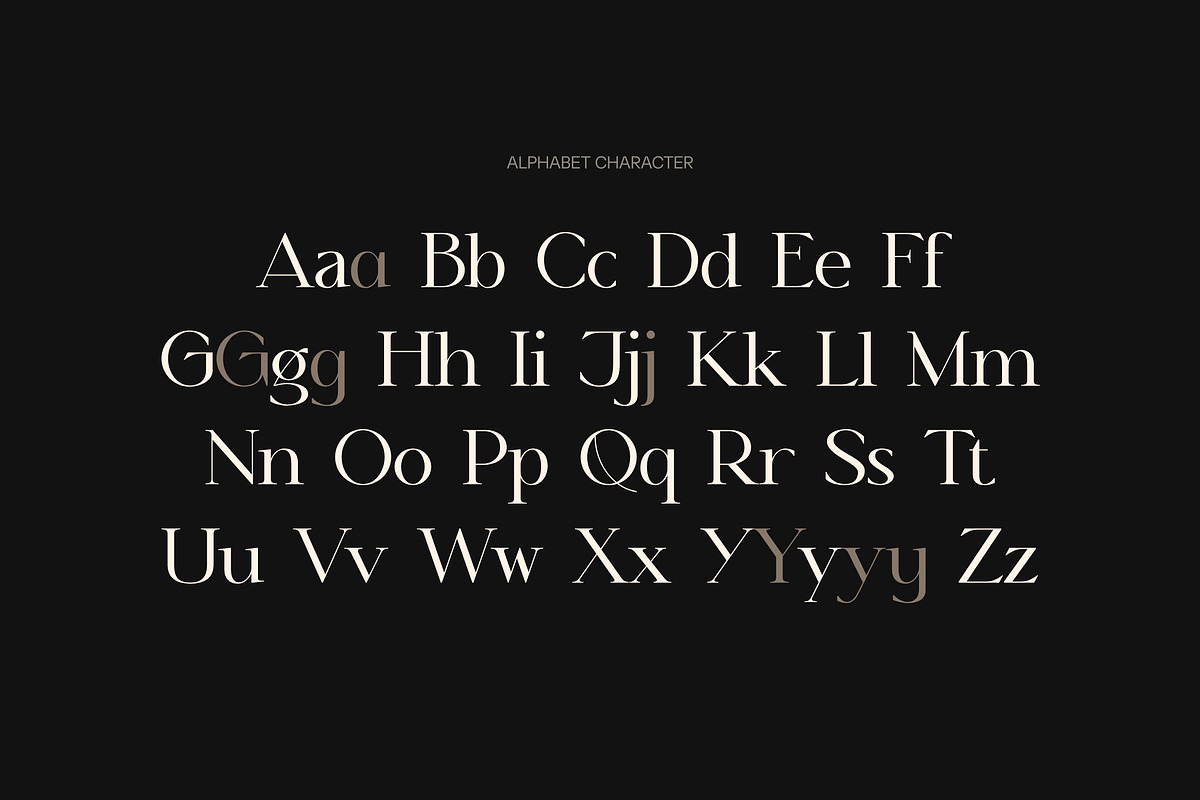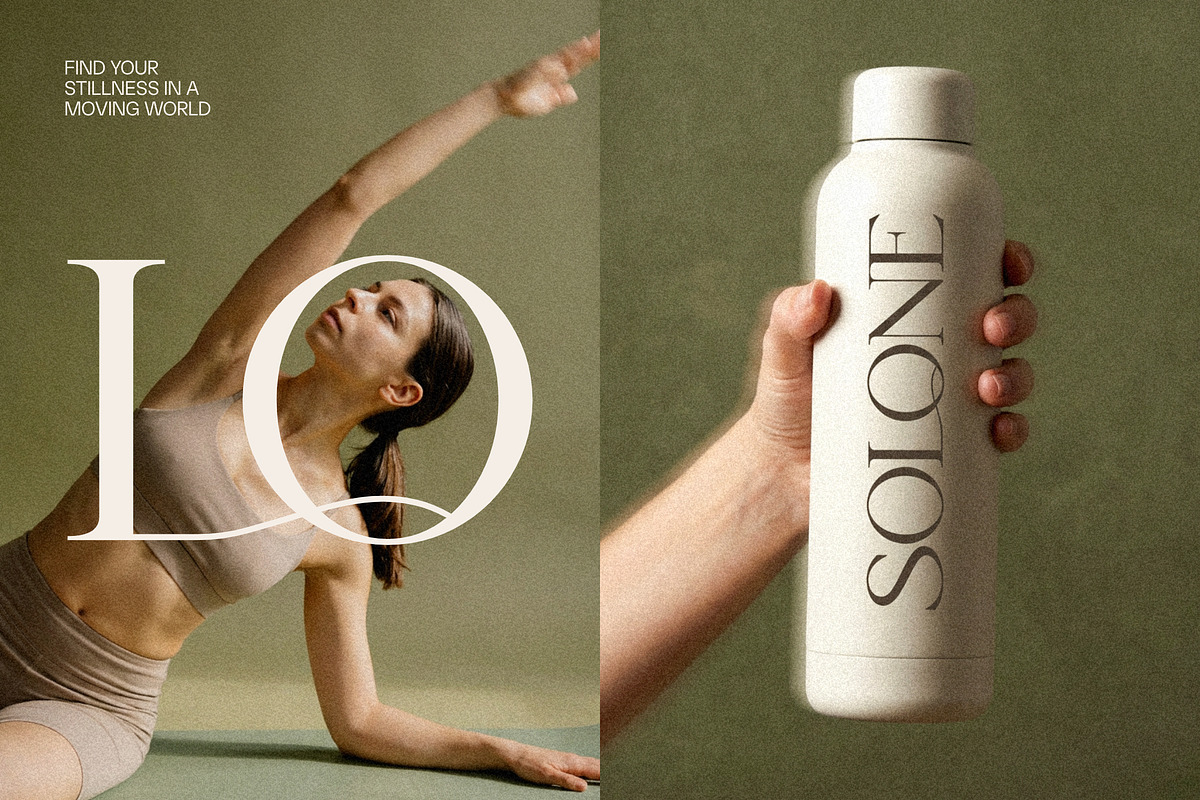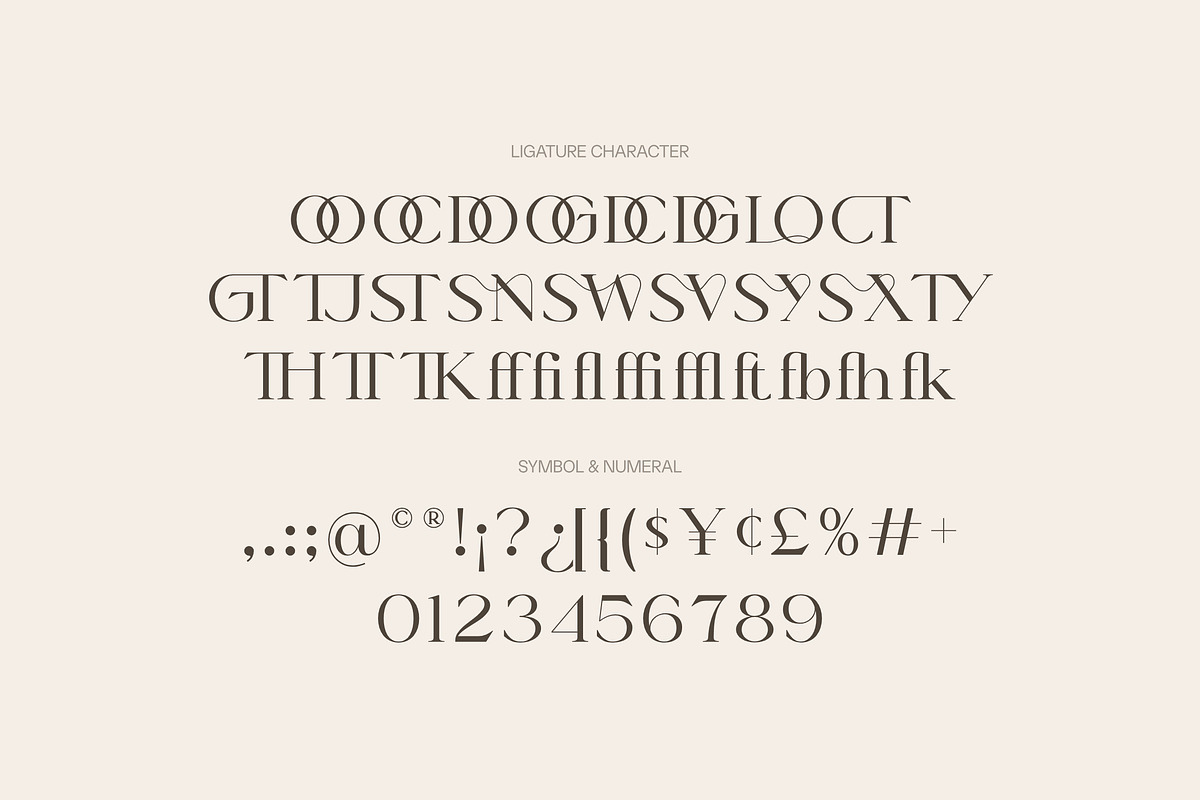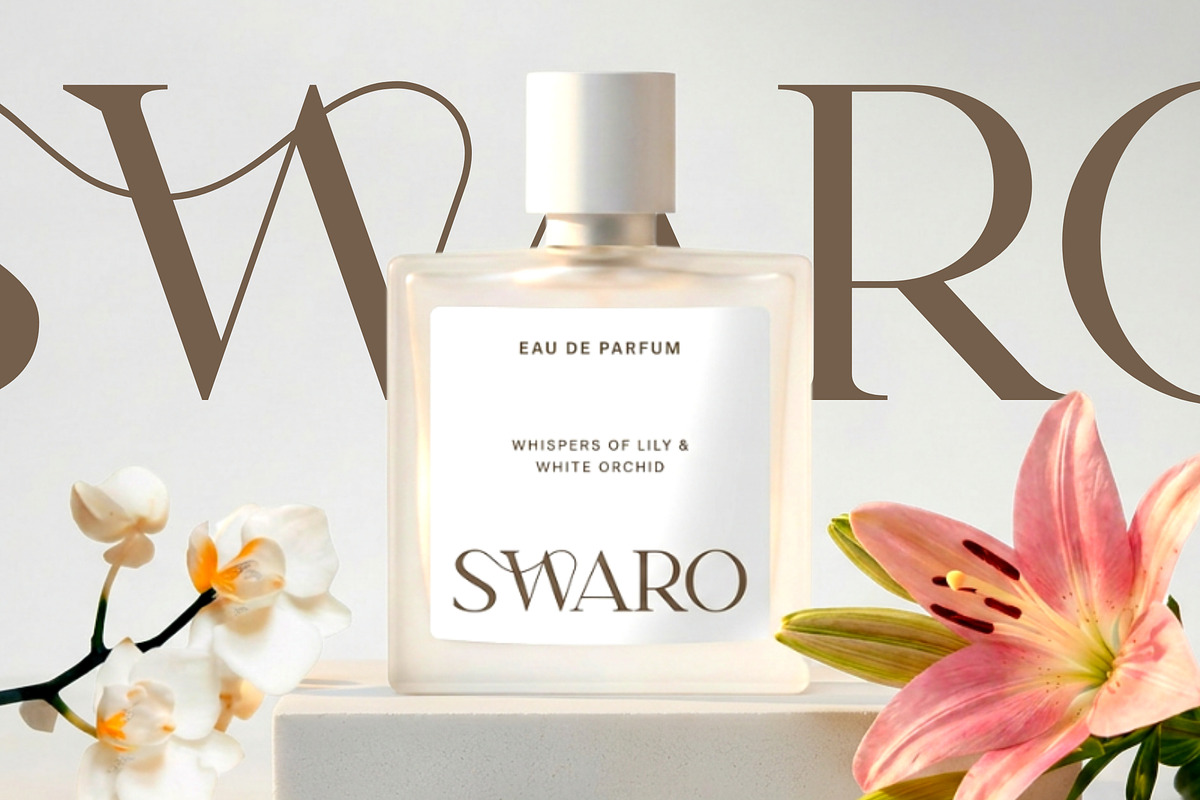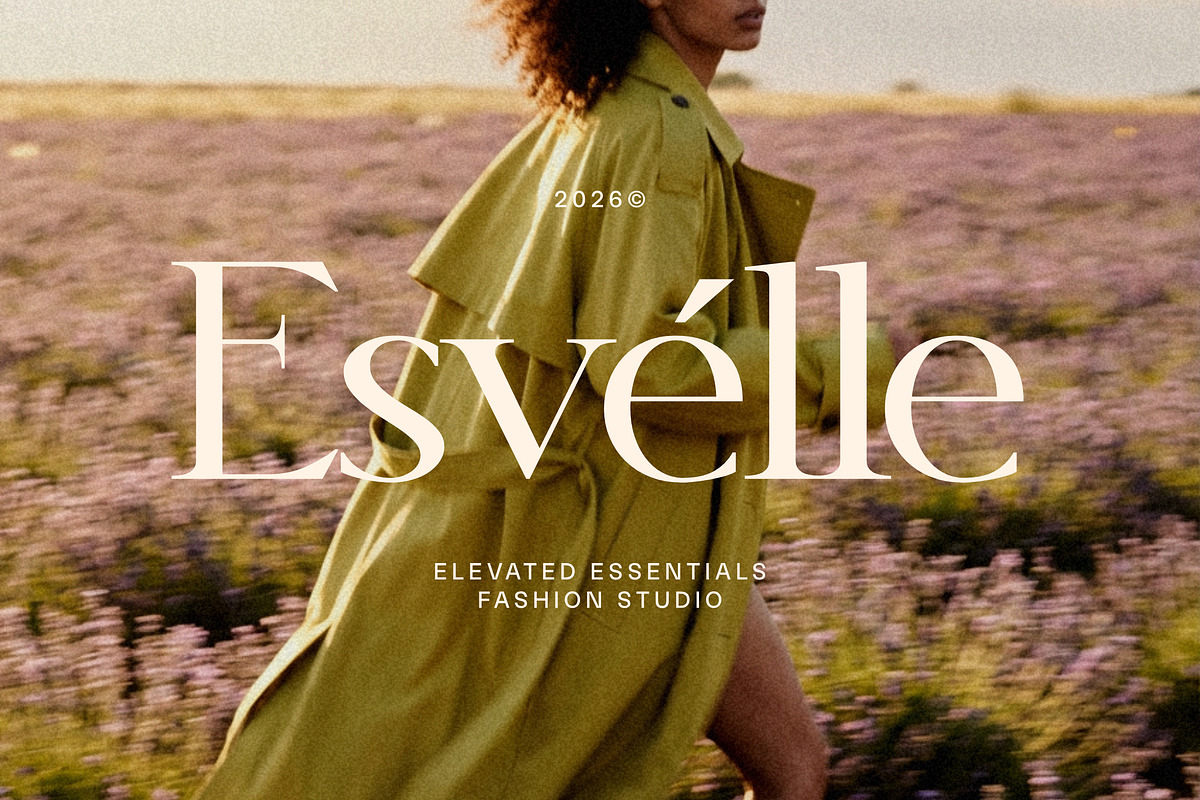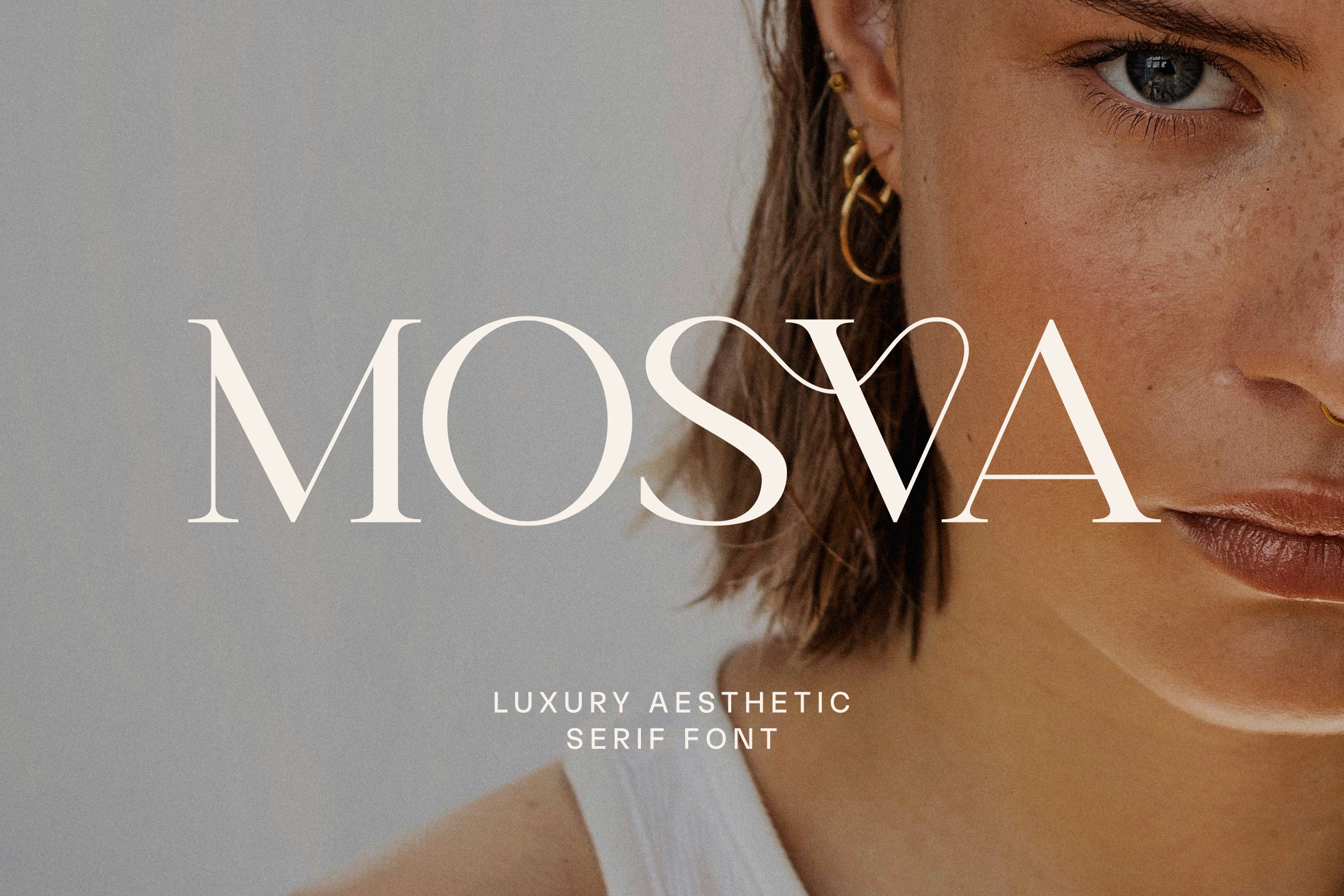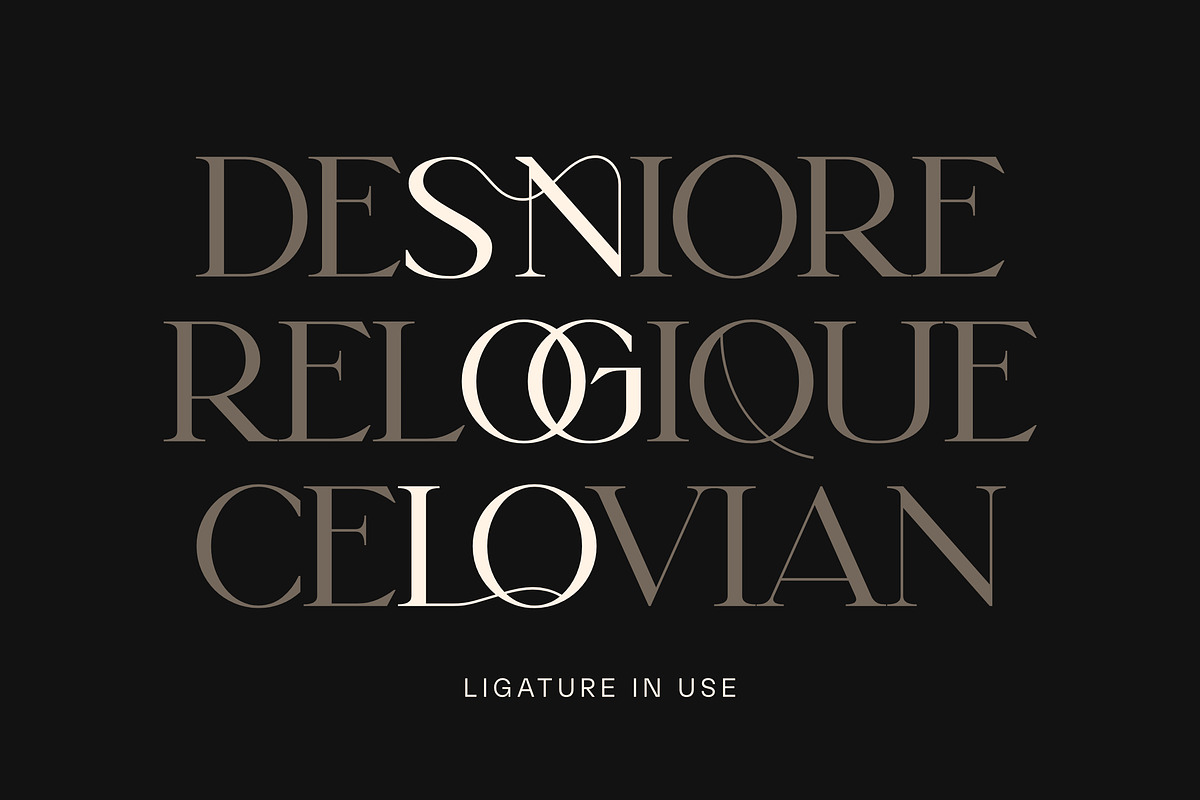
Mosva - Luxury Serif Font
MOSVA is a luxury serif typeface designed for modern luxury, fashion branding, and editorial excellence. Featuring strokes, delicate hairlines, and beautifully crafted custom ligatures, this font captures the essence of premium branding. Each letterform is meticulously balanced with graceful curves and elongated serifs, creating a distinctive editorial look that feels both luxury and modern.
The uppercase characters are tall and commanding, with sharp serifs and dramatic contrast that add a sense of prestige. The lowercase letters are soft and graceful, featuring stylish alternates and flowing ligatures that seamlessly connect selected characters for a bespoke appearance.
MOSVA is perfect for beauty packaging, labels, cosmetics, jewelry, wedding invitations, magazine headlines, logos, luxury branding, fashion editorials, and perfume packaging, premium event invitations, and upscale visual identities. Whether used in large display settings or elegant wordmarks.
Uppercase and Lowecase Characters.
Numerals and Punctuations.
Alternates and Ligatures.
Multilingual Support.